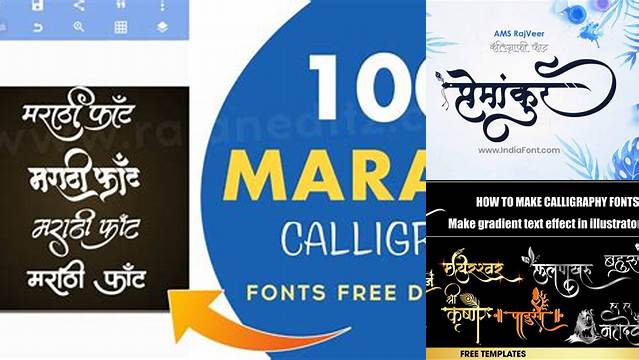
Create Stylish Marathi Fonts Free Online
Hey guys! Ever wanted to add a touch of Marathi flair to your projects? Well, you're in the right place! We're diving deep into the world of stylish Marathi calligraphy fonts, and the best part? You can generate them online, absolutely free! This article is your one-stop guide to creating stunning Marathi text designs without breaking the bank. We'll explore everything from the basics of Marathi calligraphy to the coolest online generators, ensuring you become a pro in no time. So, buckle up and let’s get started on this creative journey!
Understanding Marathi Calligraphy Basics
Before we jump into the online generators, let's take a moment to understand the essence of Marathi calligraphy. Marathi, a beautiful language spoken primarily in the state of Maharashtra, India, boasts a rich cultural heritage. Marathi calligraphy is an art form that elevates the written word to a visual masterpiece. The Devanagari script, used for Marathi, lends itself beautifully to calligraphy with its flowing lines and elegant curves. Understanding these basics will help you appreciate the nuances of the fonts you generate. Learning about the historical influences, such as the ancient scripts and the evolution of the Devanagari script over centuries, can provide a deeper appreciation for the art form. Consider exploring the different styles within Marathi calligraphy, such as the traditional Modi script, known for its cursive nature, and how it has influenced modern calligraphic styles. Remember, each stroke and curve in Marathi calligraphy tells a story, reflecting the cultural and artistic heritage of Maharashtra. Getting a grip on these foundational elements is crucial for anyone looking to create or appreciate stylish Marathi calligraphy fonts. You'll be able to better understand the design choices made in different fonts and how they contribute to the overall aesthetic. This knowledge will also help you effectively use online generators to produce the exact style you’re looking for.
The Appeal of Marathi Calligraphy Fonts
What makes Marathi calligraphy fonts so appealing, you ask? Well, the answer lies in their unique blend of tradition and modernity. These fonts carry a sense of cultural richness and artistic expression that's hard to find elsewhere. They add a touch of elegance and sophistication to any design, whether it's a wedding invitation, a poster, or a social media graphic. The intricate strokes and flowing lines of Marathi calligraphy create a visual harmony that captivates the eye. Stylish Marathi calligraphy fonts are not just about aesthetics; they're about conveying a message with grace and style. Think about the emotional impact of using a beautifully crafted Marathi font for a heartfelt message or invitation. The font itself becomes a part of the message, adding depth and meaning. Moreover, these fonts are incredibly versatile. They can be used in a variety of contexts, from formal invitations to casual social media posts. The key is to choose the right font that matches the tone and purpose of your project. For instance, a more traditional font might be perfect for a religious event, while a modern, stylized font could be ideal for a marketing campaign. Ultimately, the appeal of Marathi calligraphy fonts lies in their ability to blend tradition with contemporary design sensibilities, making them a timeless choice for anyone looking to add a touch of elegance and cultural flair to their work. So, explore the options, experiment with different styles, and let the beauty of Marathi calligraphy fonts inspire your creativity.
Benefits of Using Online Marathi Calligraphy Generators
Why should you use an online Marathi calligraphy generator? The benefits are numerous! First and foremost, they're incredibly convenient. No need to download any software or install complex programs. Just hop online, type your text, and voila! You have a beautiful Marathi calligraphy design in seconds. Plus, many of these generators are free, saving you a ton of money on expensive fonts or design services. Another significant advantage is the ease of experimentation. You can try out different fonts, styles, and sizes without any commitment. This allows you to find the perfect look for your project quickly and efficiently. Online generators also often come with customization options, allowing you to adjust the color, size, and spacing of the text. This level of control ensures that you get exactly what you need. Furthermore, these tools are a fantastic resource for non-designers. You don't need to be a professional calligrapher to create stunning Marathi text designs. The generators do the heavy lifting, making it easy for anyone to produce high-quality results. In short, online Marathi calligraphy generators offer a fast, affordable, and user-friendly way to create beautiful Marathi text designs. They empower you to express your creativity without the need for specialized skills or expensive software. So, embrace the convenience and explore the possibilities!
Top Online Marathi Calligraphy Font Generators
Alright, let's get to the juicy part – the top online Marathi calligraphy font generators! There are several fantastic options available, each with its own unique features and strengths. One popular choice is [Generator Name 1], known for its wide selection of fonts and user-friendly interface. You can easily type your text, browse through the font options, and customize the design to your liking. Another great option is [Generator Name 2], which offers a more advanced set of customization tools, allowing you to fine-tune every aspect of the design. This is perfect for those who want more control over the final output. Then there's [Generator Name 3], which stands out for its simplicity and speed. It's a great choice if you need to generate a quick design without fuss. When choosing a generator, consider factors like the variety of fonts offered, the ease of use, and the customization options available. Some generators may also offer additional features, such as the ability to download the generated text as a vector file, which is ideal for printing and scaling. Don't be afraid to try out a few different generators to see which one best suits your needs. Each tool has its own quirks and advantages, so experimentation is key. Ultimately, the goal is to find a generator that empowers you to create stylish Marathi calligraphy fonts effortlessly and effectively.
How to Choose the Right Marathi Calligraphy Font Style
Choosing the right Marathi calligraphy font style can be a bit overwhelming, especially with so many options available. But don't worry, guys! Here's a simple guide to help you make the perfect choice. First, consider the purpose of your design. Is it for a wedding invitation, a social media post, or a business logo? The context will heavily influence the type of font you should use. For formal occasions like weddings, a traditional and elegant font style is often the best choice. Think of flowing lines and intricate details that convey a sense of sophistication. For more casual projects, such as social media graphics, you can opt for a modern and stylized font that's eye-catching and unique. Consider your target audience as well. What kind of message do you want to convey? A bold and impactful font might be suitable for a marketing campaign, while a softer and more delicate font might be ideal for a heartfelt message. Pay attention to the readability of the font. While aesthetics are important, the font should also be easy to read. Avoid overly ornate fonts that might make the text difficult to decipher. Experiment with different font sizes and styles to see what works best for your design. Don't be afraid to try out different combinations and see what resonates with you. Ultimately, the best way to choose the right font is to trust your instincts and go with what feels right. Remember, stylish Marathi calligraphy fonts can elevate your design to the next level, so take your time and choose wisely.
Customizing Your Marathi Calligraphy Fonts
One of the coolest things about using online Marathi calligraphy generators is the ability to customize your fonts. This means you're not stuck with the default settings – you can tweak and adjust the fonts to perfectly match your vision. Most generators offer options to change the font size, color, and spacing. These basic adjustments can make a significant difference in the overall look and feel of your design. Experiment with different color combinations to create a visually appealing effect. Consider using contrasting colors to make the text stand out, or opt for more subtle shades for a softer look. Adjusting the spacing between letters and words can also improve readability and visual appeal. Too much spacing can make the text look disjointed, while too little spacing can make it appear cluttered. Some generators offer more advanced customization options, such as the ability to adjust the stroke thickness, add shadows, or apply special effects. These features allow you to create truly unique and personalized designs. Don't be afraid to experiment with different settings and see what kind of effects you can achieve. Remember, the goal is to create a font that perfectly complements your design and conveys your message effectively. Customization is key to making your Marathi calligraphy fonts stand out and leave a lasting impression. So, dive in, explore the options, and let your creativity flow!
Integrating Marathi Calligraphy Fonts into Your Designs
Now that you've generated your stylish Marathi calligraphy fonts, it's time to integrate them into your designs! This is where the magic really happens. Think about the overall layout and composition of your design. Where will the Marathi text fit best? Consider the balance and harmony of the elements. The font should complement the other design elements, such as images, graphics, and colors. Choose a placement that enhances the overall aesthetic appeal. Experiment with different sizes and positions to see what works best. Don't be afraid to play around with the layout until you find the perfect balance. Think about the context of your design. Is it for a poster, a website, or a social media post? The integration strategy will vary depending on the medium. For posters and websites, you might want to use the Marathi font as a headline or a key design element. For social media posts, you can use it to add a touch of personality and flair. Consider the color palette of your design. The Marathi font should harmonize with the other colors used. Choose a color that complements the overall scheme and enhances the readability of the text. Pay attention to the spacing and alignment of the text. Proper spacing and alignment can make a big difference in the overall look and feel of your design. Make sure the text is easy to read and visually appealing. Ultimately, the key to successful integration is to experiment and have fun. Let your creativity guide you and don't be afraid to try new things. Stylish Marathi calligraphy fonts can add a unique and elegant touch to your designs, so take the time to integrate them thoughtfully.
5. The Art of Combining Fonts for Marathi Designs
The art of combining fonts is a crucial skill for anyone working with Marathi designs. Using a single font throughout a project can sometimes feel monotonous, while combining fonts effectively can add depth, visual interest, and clarity to your work. However, it's a delicate balance, and choosing the wrong combinations can lead to a cluttered and unprofessional look. The key to combining fonts successfully is to create a harmonious contrast. This means selecting fonts that are different enough to stand out from each other but similar enough to work together cohesively. One common approach is to pair a stylish Marathi calligraphy font with a simpler, more readable font for body text. This allows the calligraphy font to shine in headings and titles while ensuring that the main text is easy to read. Consider the personality of the fonts you're combining. Do they convey the same tone and style? A formal calligraphy font might not pair well with a playful, cartoonish font, for example. Think about the hierarchy of information in your design. Use different fonts to distinguish between headings, subheadings, and body text. This helps guide the reader through the content and makes it easier to understand. Pay attention to the spacing and alignment of the fonts. Consistent spacing and alignment create a sense of order and professionalism. Experiment with different font sizes and weights to create visual contrast. A bold heading paired with a lighter body text can create a dynamic and engaging effect. Don't be afraid to try out different combinations and see what works best for your project. Font pairing is often a matter of personal preference, so trust your instincts and let your creativity guide you. Mastering the art of combining fonts will elevate your Marathi designs and help you communicate your message more effectively. So, explore the possibilities, experiment with different pairings, and create stylish Marathi calligraphy fonts that are both visually appealing and functional.